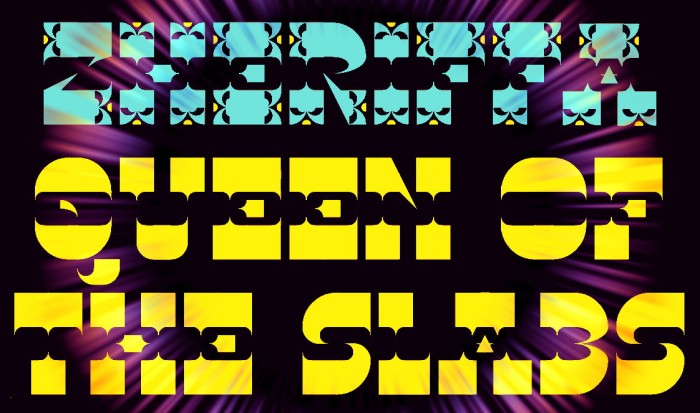
Work in progress (kerning and more glyphs to come).
Work in progress (kerning and more glyphs).
Well dear elmo, this is the one you made to look beautifully ornate and I really like it. I love the polynesian look of the second sample. Good luck to you too :)
Holy flip this is decorative.